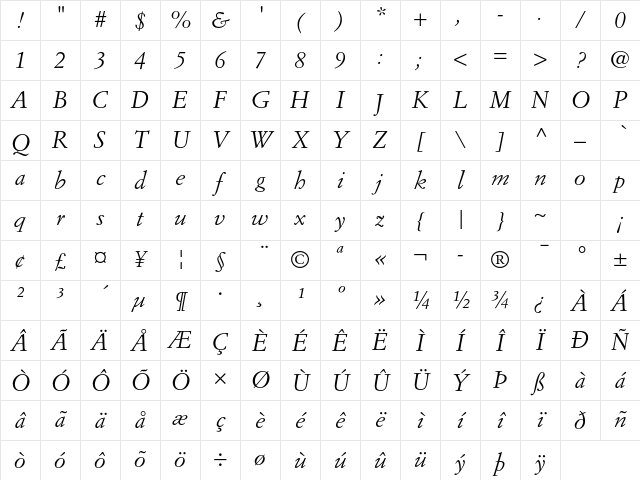
Simoncini Garamond Std Italic
Designer: Francesco Simoncini, W. Bilz
Design Context for Simoncini Garamond Std
Simoncini Garamond Std is a composed and adaptable typeface that performs quietly and consistently across a wide range of design contexts. The slanted form adds forward momentum and visual energy.